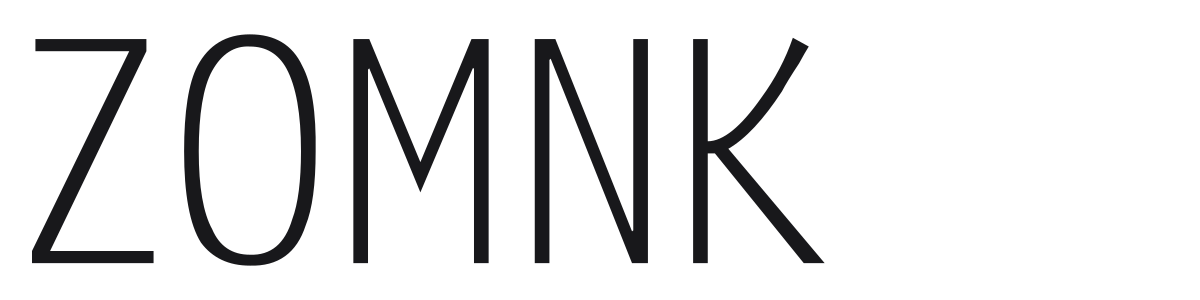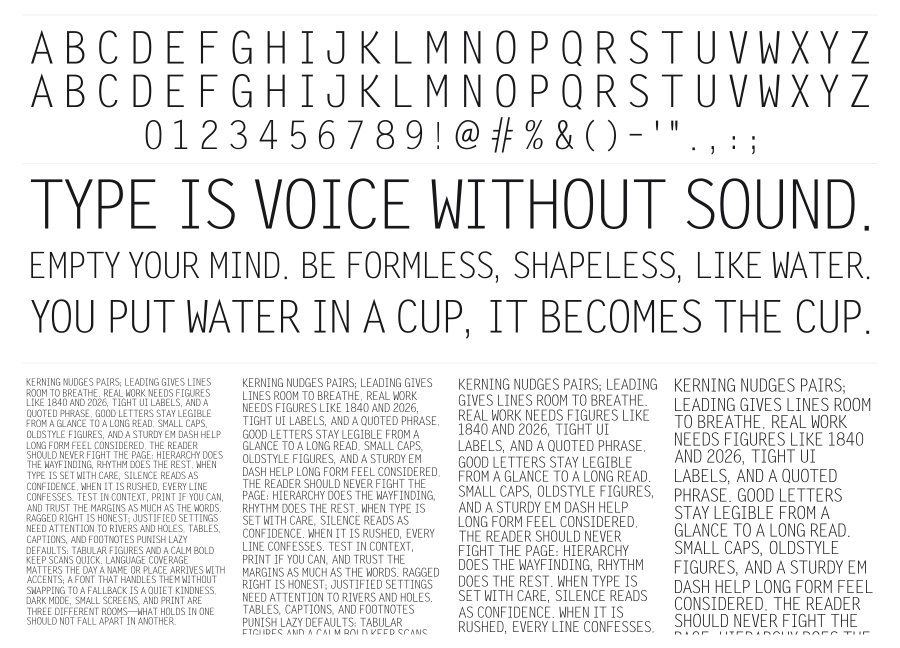
Zomnk
Zomnk is a condensed geometric sans-serif built on a light, near-monoweight stroke with tall, narrow proportions. Its clean construction and open apertures give it a quiet, modern elegance that works well at large sizes in branding and editorial contexts. The restraint is the point.